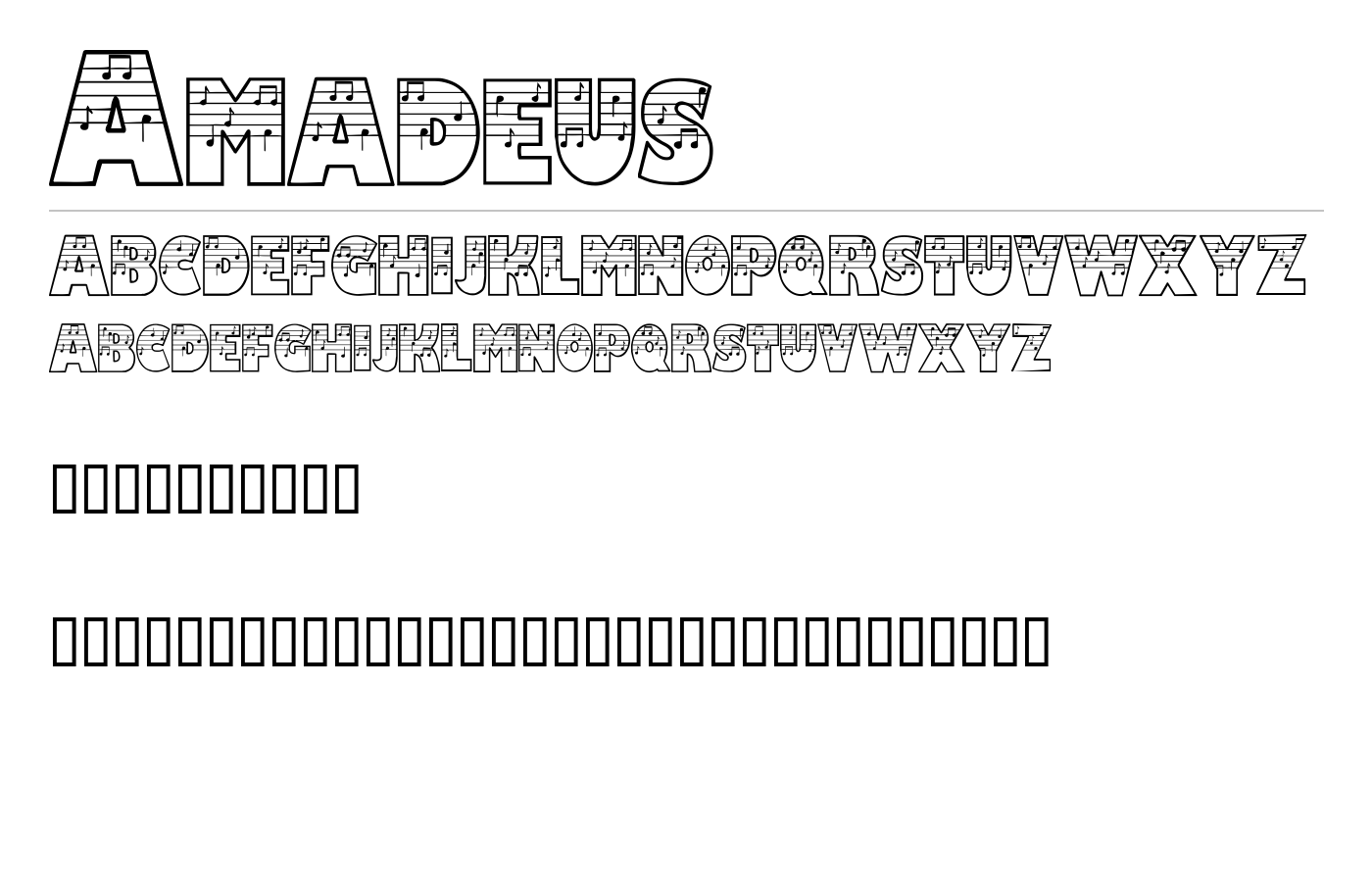
Amadeus is a bold, playful sans serif display font featuring uppercase letters filled with musical notes and staff lines, lending it a fun and creative vibe. Its strong, geometric shapes combined with the music-themed decoration make it ideal for artistic or entertainment-related projects, especially where a lively and whimsical tone is desired. This font works best in headlines, logos, and posters to capture attention and convey a sense of musical flair.
Amadeus Font
About Amadeus Font